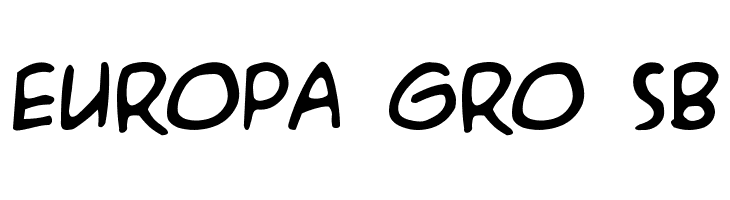
A playful and elegant handwritten script font with a dynamic flow.
A lively, expressive script font with a modern, handwritten feel.
A classic serif font with high contrast and elegant strokes.
A modern, bold sans-serif font with geometric influences and uniform stroke widths.
A modern, geometric font with thin lines and bold circular accents.
An elegant script font with calligraphic flourishes and smooth connections.
A lively, cursive font with interconnected letters and elegant curves.
A modern, elegant script font with flowing, interconnected letters.
A bold, Gothic-inspired font with sharp, angular edges and strong geometric shapes.
A bold, angular italic font with dynamic and energetic styling.
A playful, bold font with rounded edges and a hand-drawn aesthetic.
A playful, bold, hand-drawn uppercase font with a casual and friendly feel.
A sophisticated cursive font with elegant, flowing strokes.
A modern, high-contrast font with elegant serifs and artistic flourishes.
A bold, angular font with a futuristic and dynamic design.
An elegant script font with flowing, cursive letterforms and ornate details.
A modern, high-contrast font with elegant serifs and artistic special characters.
A modern serif font with bold strokes and elegant curves.
A flowing, elegant script font with ornate uppercase and harmonious lowercase letters.
A modern, geometric font with a clean and structured appearance.
A bold, modern geometric font with a clean and angular design.
A modern, italicized font with a sleek and dynamic appearance.
A fluid, elegant script font with a handwritten calligraphic style.
A cursive, handwritten font with elegant, flowing strokes.
A modern, geometric font with clean lines and a bold presence.
A bold, decorative font with intricate swirls and vintage flair.
An abstract, artistic font with thin, fluid strokes and a modern, decorative style.
A decorative font with bold, geometric characters and intricate cut-out details.
A decorative and whimsical font with intricate swirls and curls.
A bold, decorative font with intricate flourishes and high contrast.
A bold, rounded font with a strong, playful presence.
A bold, modern font with a futuristic and geometric design.